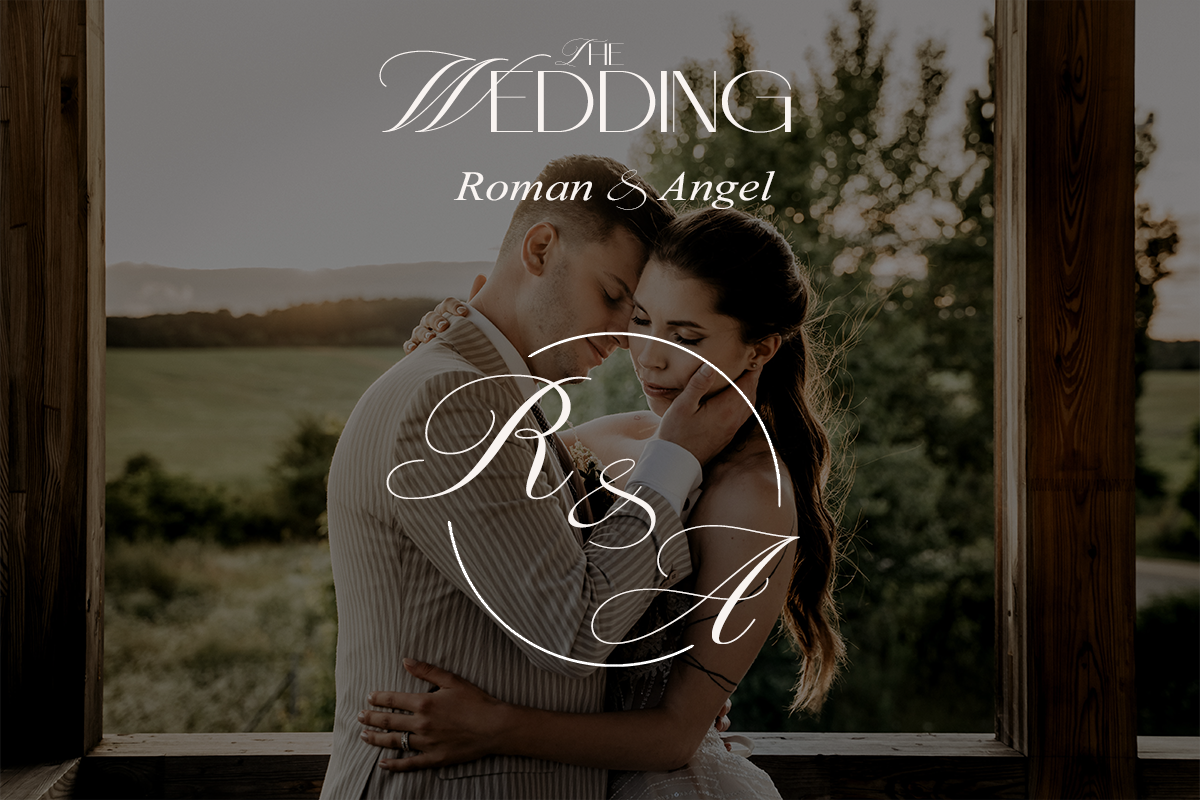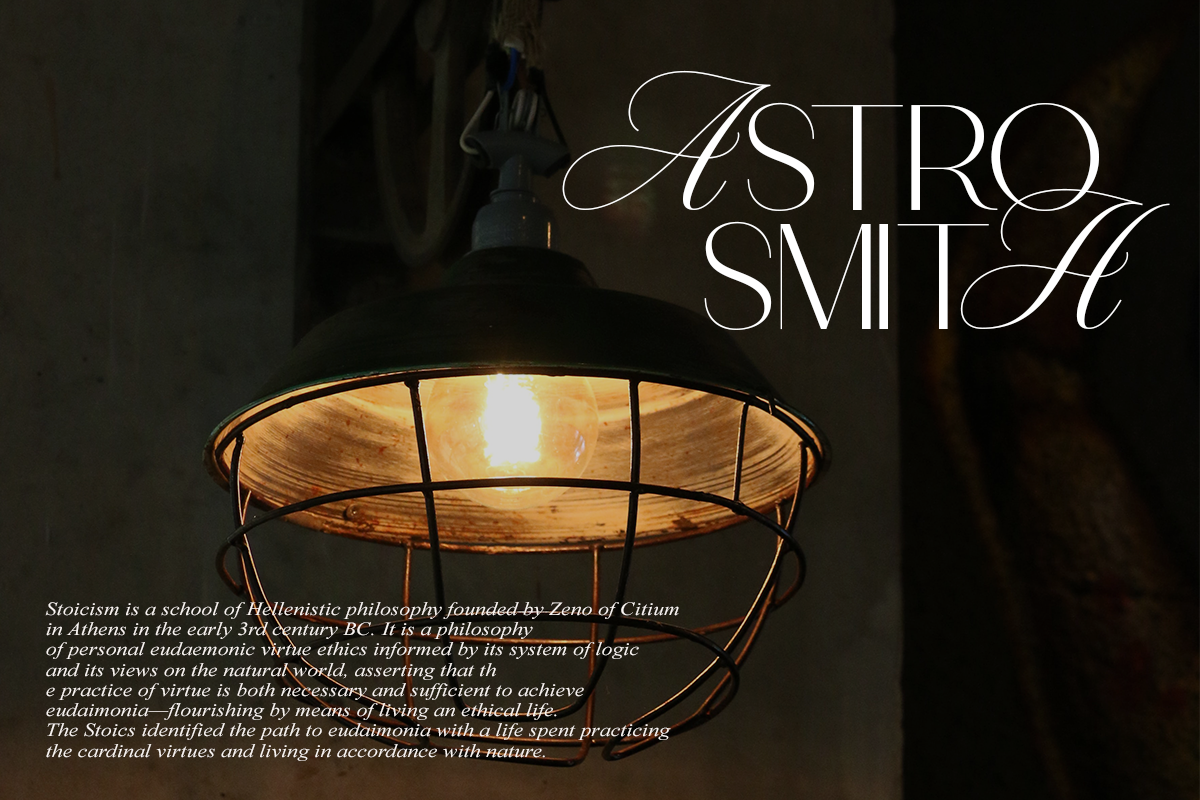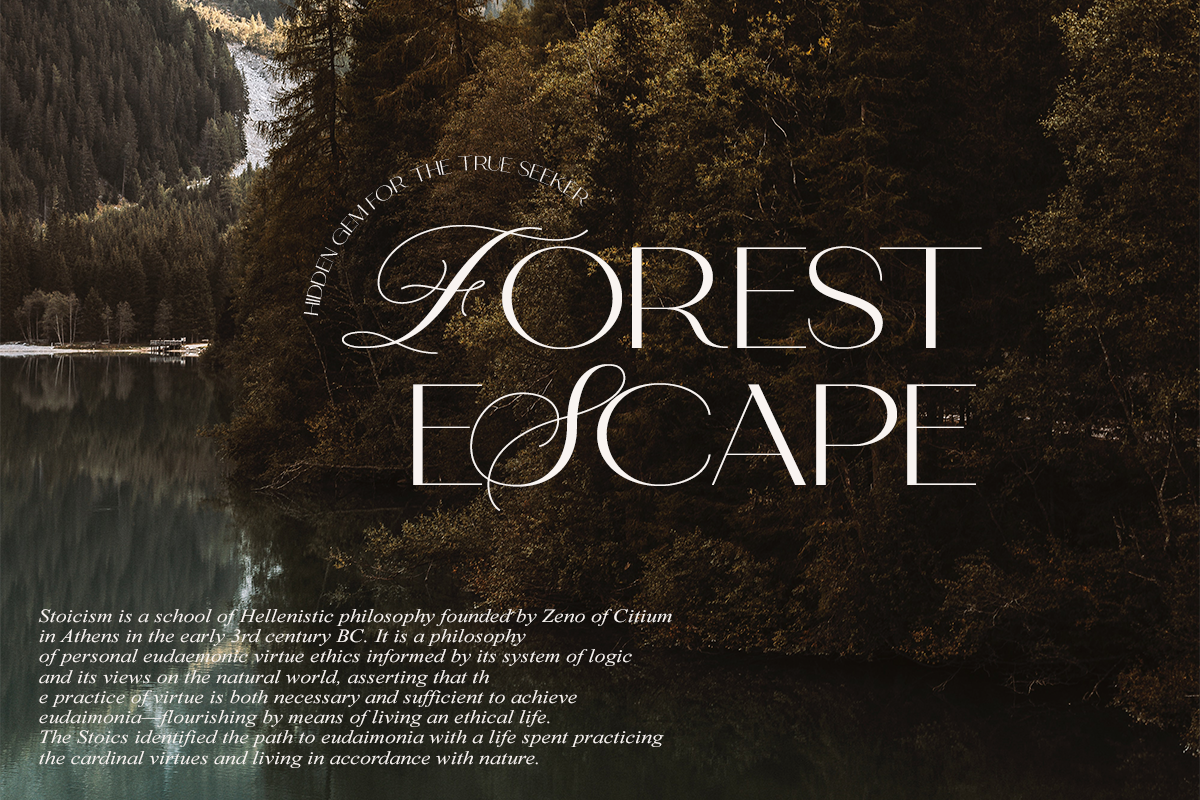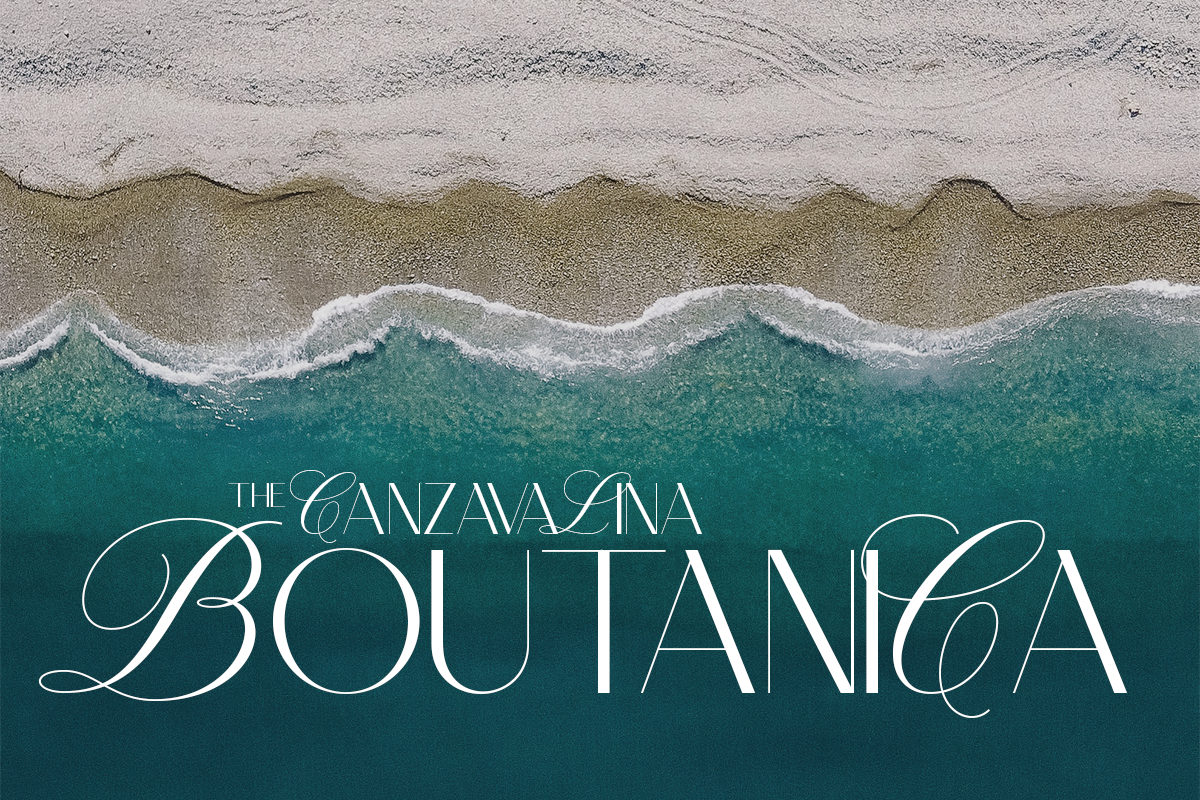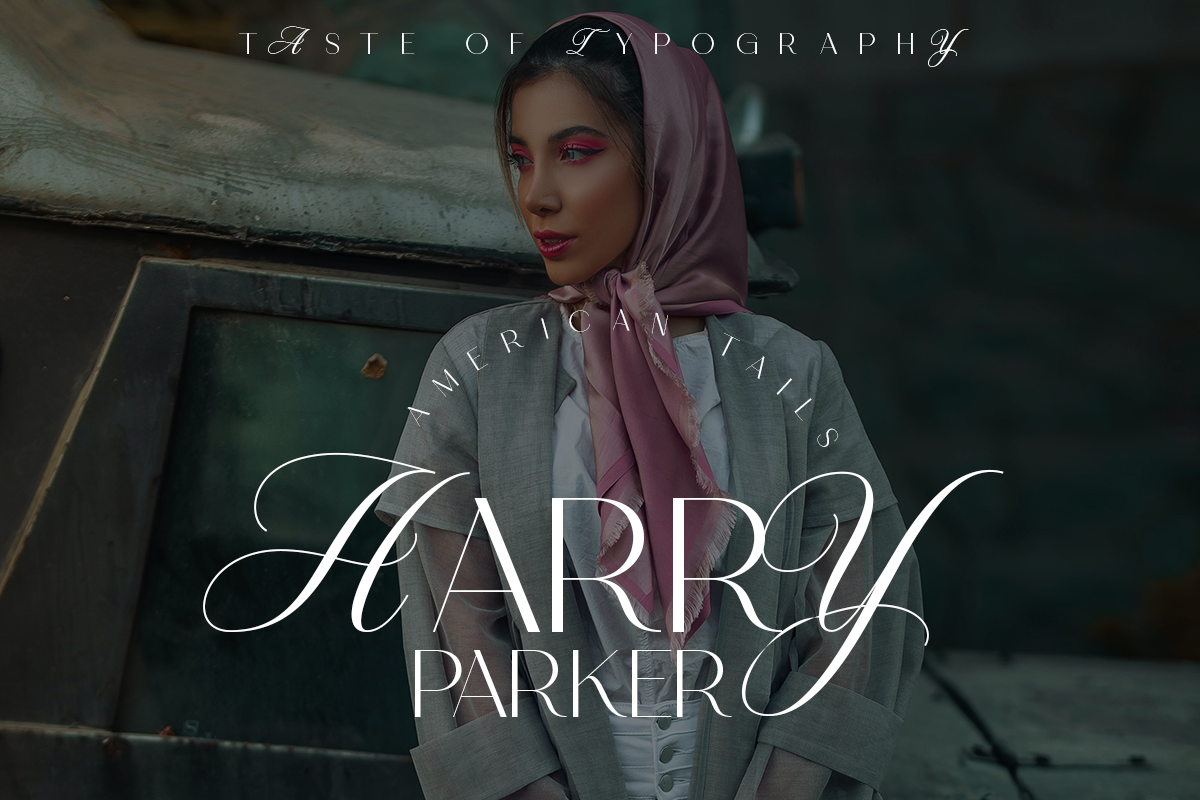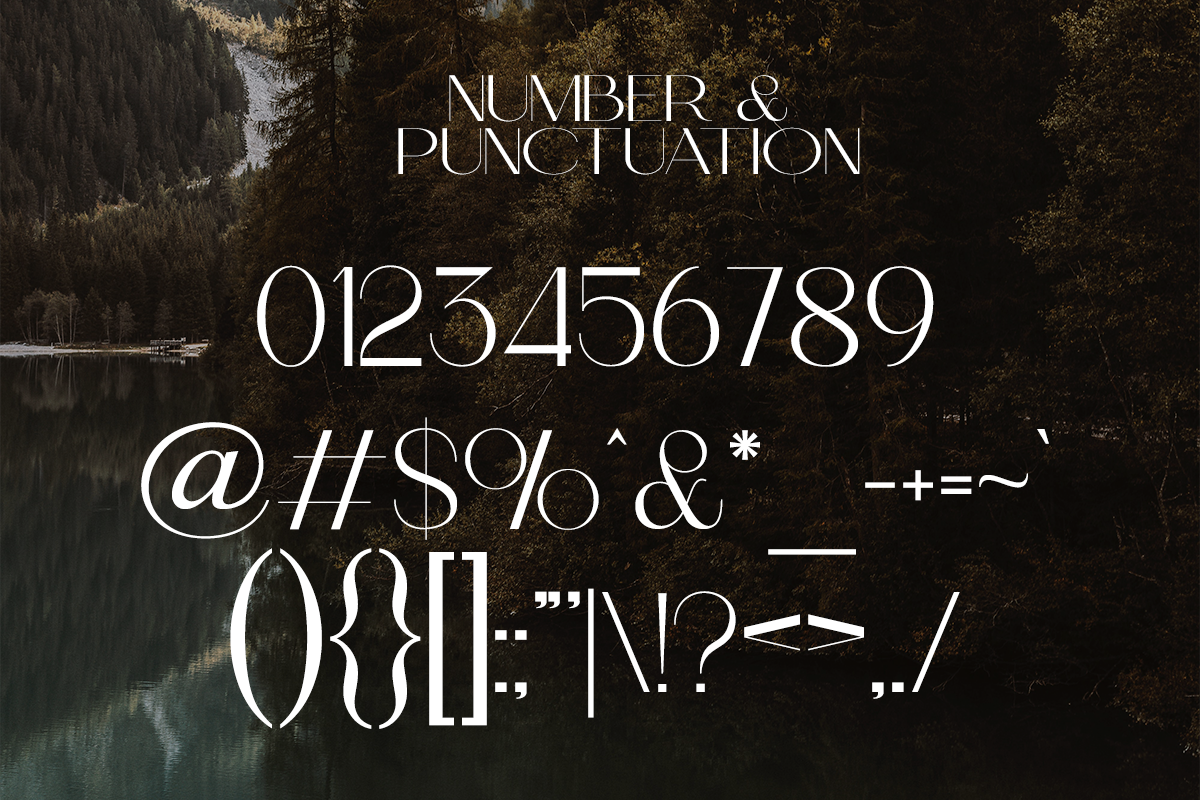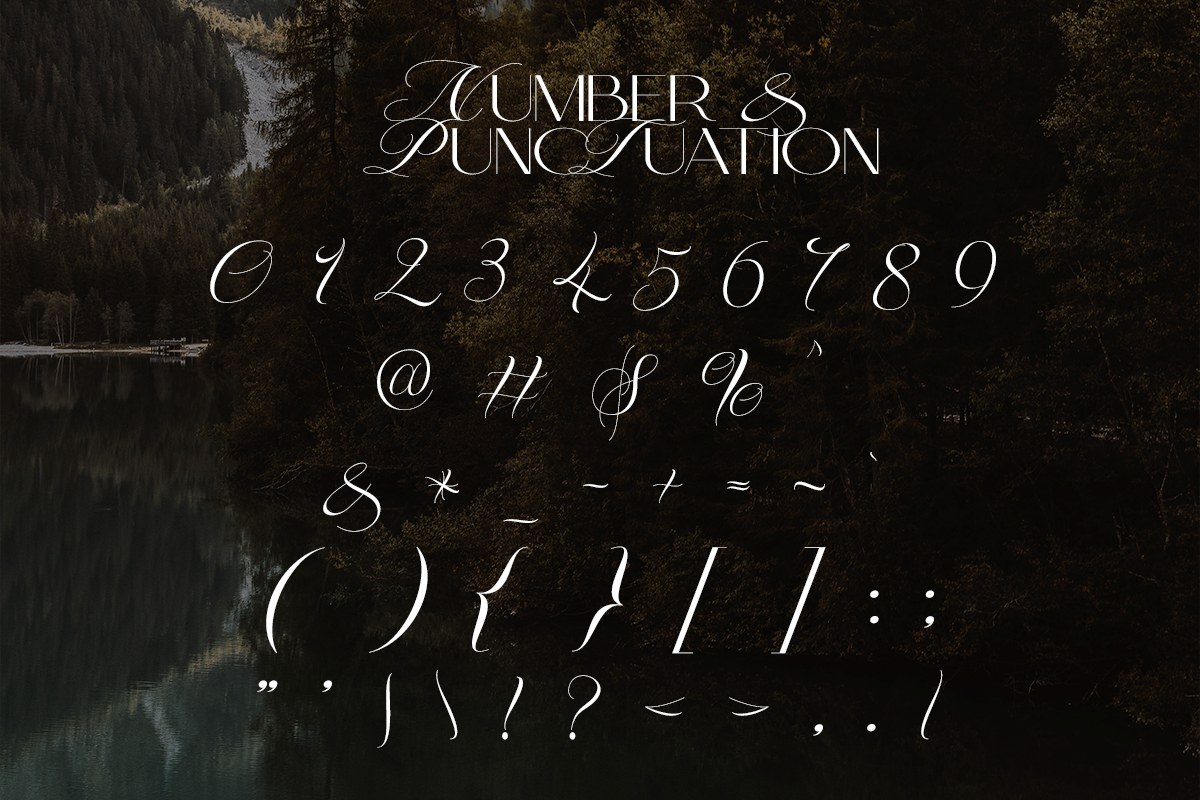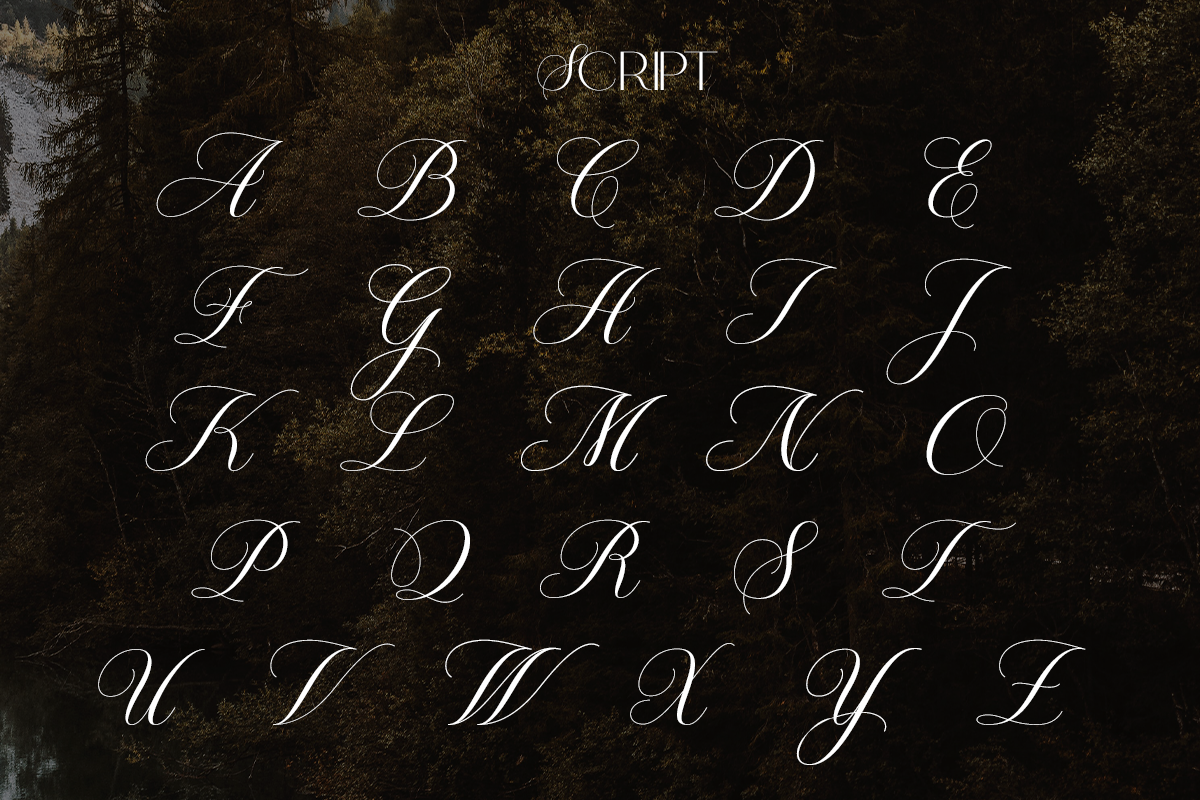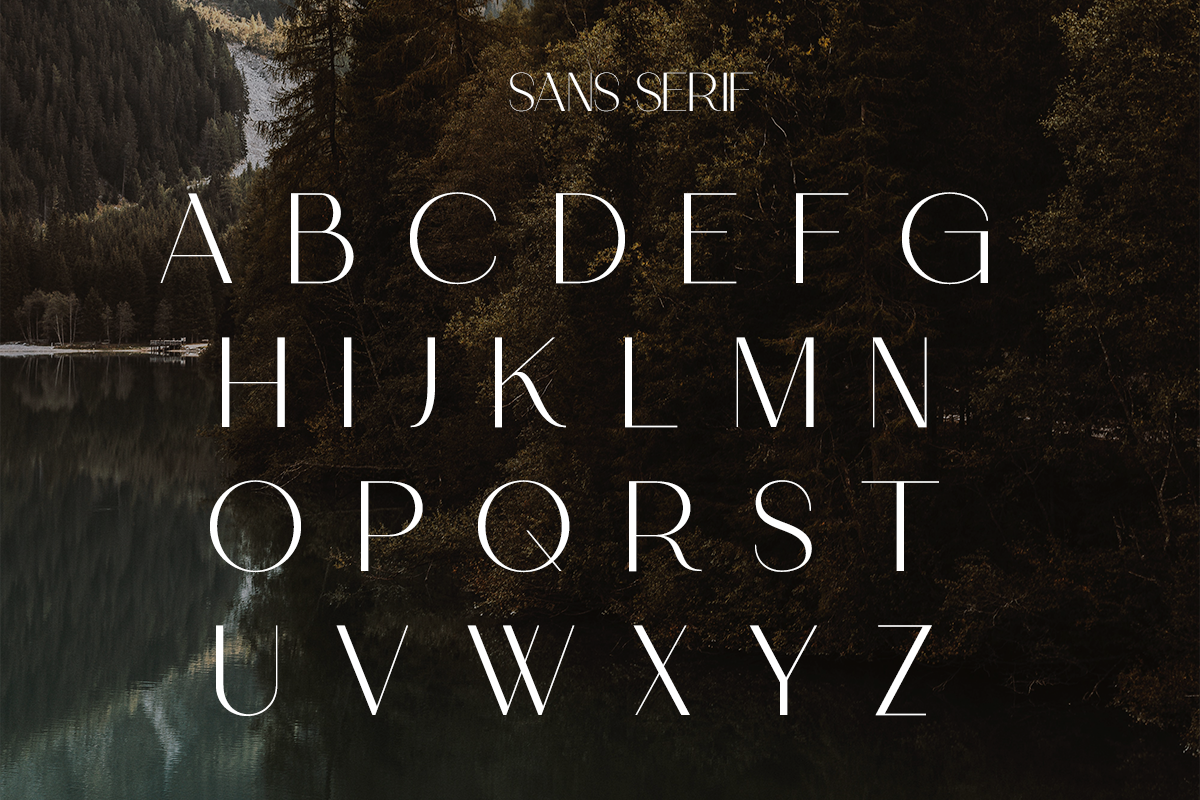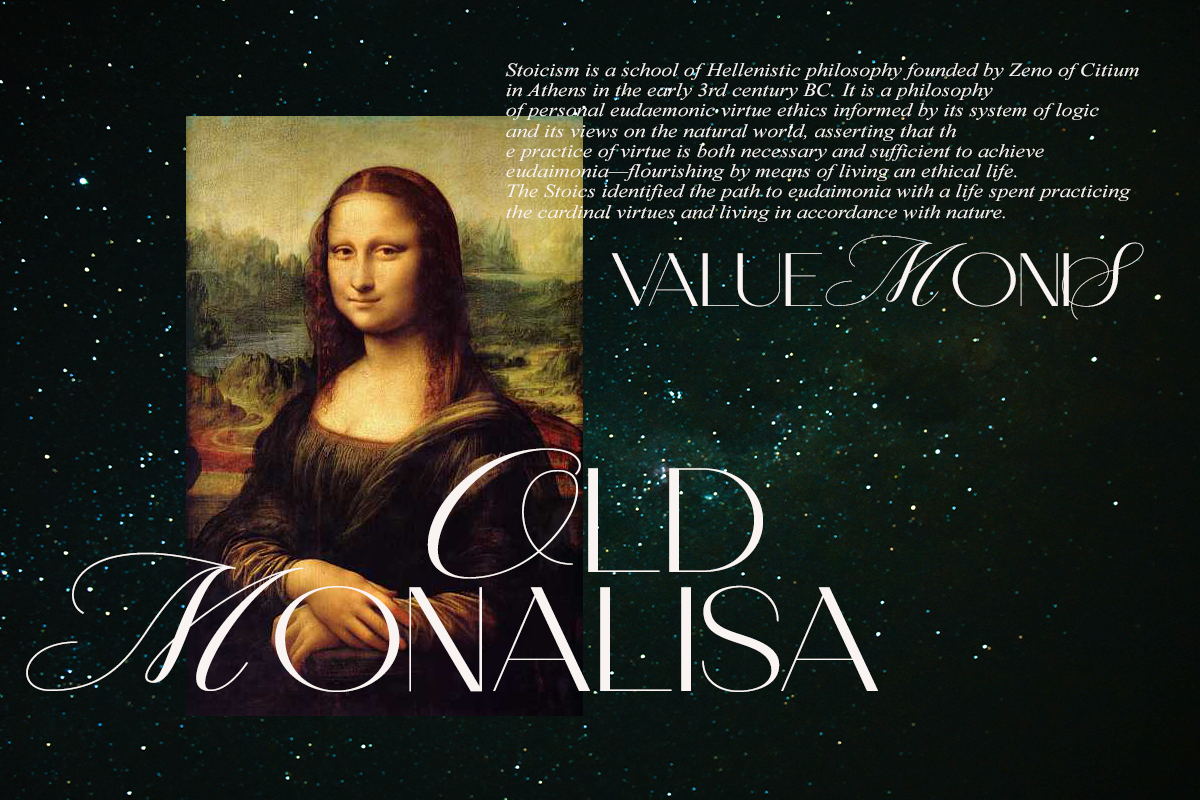
Tropic Hills | Hybrid Display
Tropic Hills fonts include uppercase letters, numerals, a large range of punctuation. Sans Serif font with modern stylish style. Created for poster, web design, branding, illustrations, badges, and some other works. Font Duo Hybrid Script and Serif.